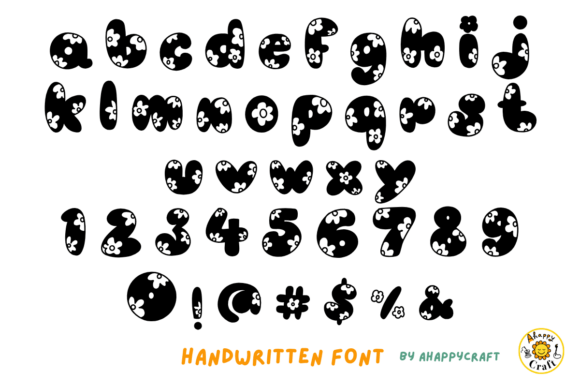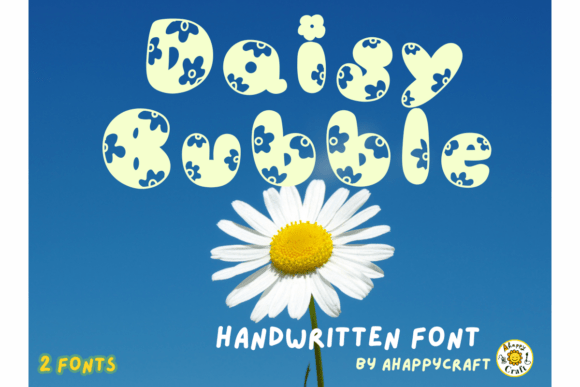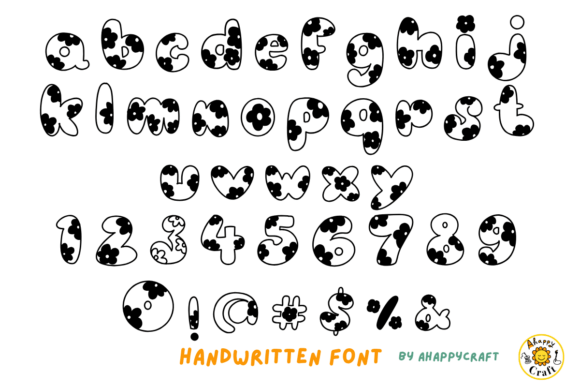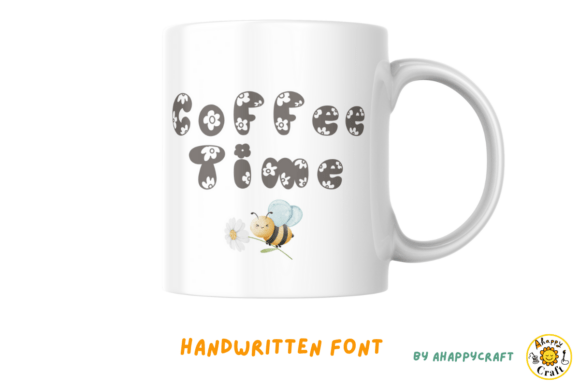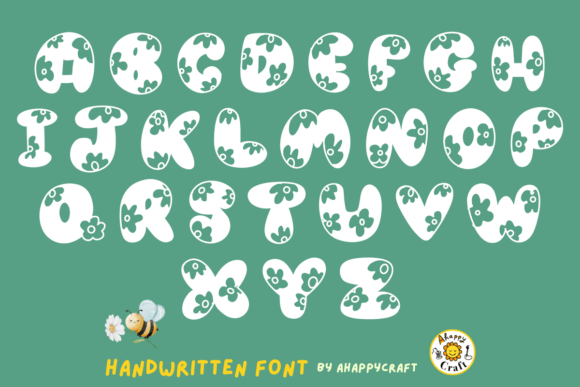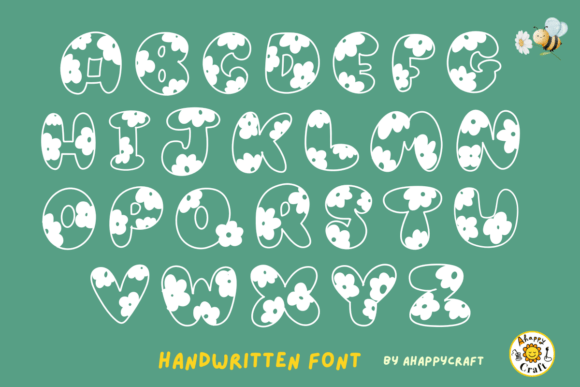
Daisy Time Font: Add a Touch of Whimsy to Your Designs
Are you looking for a font that can add a touch of sweetness and playfulness to your designs? Look no further than the Daisy Time Font. This charming handwritten display font features daisy flower cut-outs inside each letter, making it perfect for a variety of creative projects. In this article, we’ll take a closer look at the Daisy Time Font, its features, and how you can use it to elevate your designs.
What is Daisy Time Font?
Daisy Time Font is a sweet and cheerful handwritten display font that is designed to bring a touch of whimsy to your designs. The font features daisy flower cut-outs inside each letter, giving it a playful and feminine feel. The font comes in two styles, allowing you to add versatility to your creative projects. Whether you’re designing greeting cards, scrapbooking, or creating spring-themed designs, Daisy Time Font is the perfect choice.
Key Features of Daisy Time Font
- Handwritten Display Font: Daisy Time Font is a handwritten display font that is designed to add a personal touch to your designs.
- Daisy Flower Cut-Outs: Each letter features daisy flower cut-outs, giving the font a playful and whimsical feel.
- Comes in Two Styles: The font comes in two styles, allowing you to add versatility to your designs.
- Perfect for Various Projects: Daisy Time Font is perfect for greeting cards, scrapbooking, spring-themed designs, and crafting.
Uses of Daisy Time Font
Daisy Time Font is a versatile font that can be used in a variety of creative projects. Here are some ideas to get you started:
- Greeting Cards: Add a touch of sweetness to your greeting cards with Daisy Time Font. Perfect for birthdays, weddings, and other special occasions.
- Scrapbooking: Use Daisy Time Font to add a playful touch to your scrapbooking pages. The font is perfect for journaling, captions, and titles.
- Spring-Themed Designs: Celebrate the arrival of spring with Daisy Time Font. Use the font to create beautiful spring-themed designs, such as posters, flyers, and social media graphics.
- Crafting: Daisy Time Font is perfect for crafters who love to create handmade projects. Use the font to add a personal touch to your crafting projects, such as sewing, knitting, or paper crafting.
Tips for Using Daisy Time Font
Here are some tips for using Daisy Time Font in your designs:
- Pair with Other Fonts: Pair Daisy Time Font with other fonts to create a unique and interesting look. Try pairing it with a bold font for a striking contrast.
- Experiment with Colors: Experiment with different colors to find the perfect combination for your design. Pastel colors work well with Daisy Time Font, but you can also try bold and bright colors for a more playful look.
- Use in Combination with Images: Use Daisy Time Font in combination with images to create a beautiful and eye-catching design. Try using the font to add a caption to a photo or illustration.
Daisy Time Font is a charming and versatile font that can add a touch of whimsy to your designs. With its daisy flower cut-outs and handwritten display style, it’s perfect for a variety of creative projects, including greeting cards, scrapbooking, spring-themed designs, and crafting. Whether you’re a designer or crafter, Daisy Time Font is a great addition to your font collection. So why not give it a try and see how it can elevate your designs?